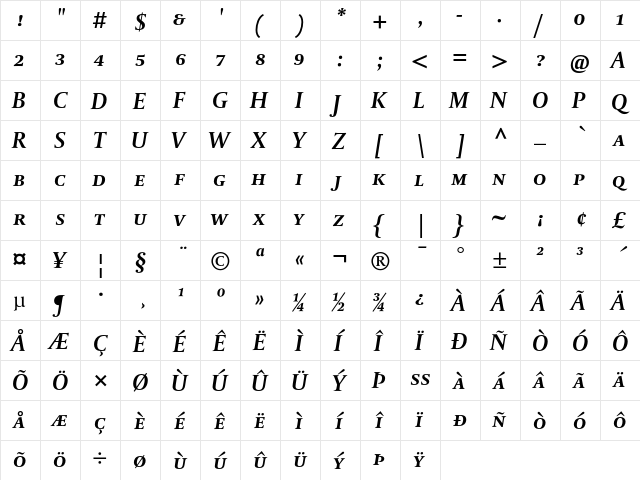
DTL Paradox T Caps Bold Italic
Design Context for DTL Paradox Typeface
DTL Paradox is a composed and adaptable typeface that performs quietly and consistently across a wide range of design contexts. The dynamic lean of this cut emphasises speed and emphasis in any layout. The heavy weight commands attention and anchors typographic hierarchies.
Pro Tip: Use DTL Paradox for emphasis, pull quotes, and subheadings where its slanted energy can add rhythm to the layout.